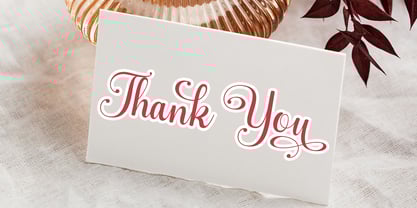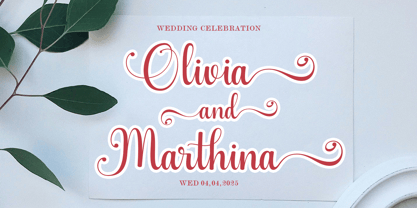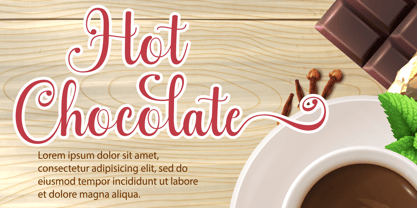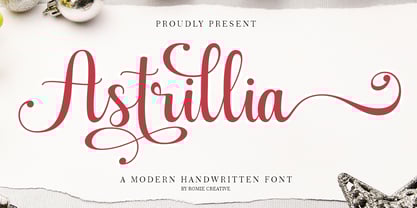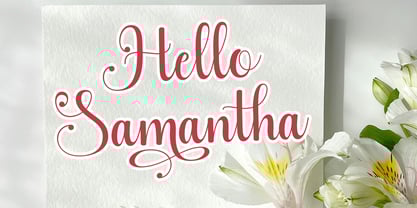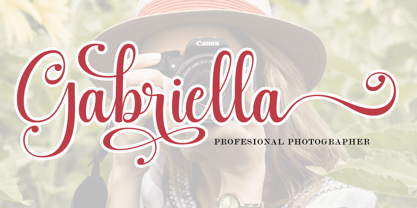
Astrillia Script
by Romie Creative
The Astrillia Script Font Family was designed by Romi Rahmadi and published by Romie Creative. Astrillia Script contains 1 styles.
Astrillia Script is an elegant and flowing handwritten font. It has varied baselines, smooth lines, beautiful glyphs, and stunning alternates. It maintains a classy calligraphic influence while feeling contemporary and fresh. Fall in love with this font and take your projects to the highest level!
Designers: Romi Rahmadi
Publisher: Romie Creative
Foundry: Romie Creative